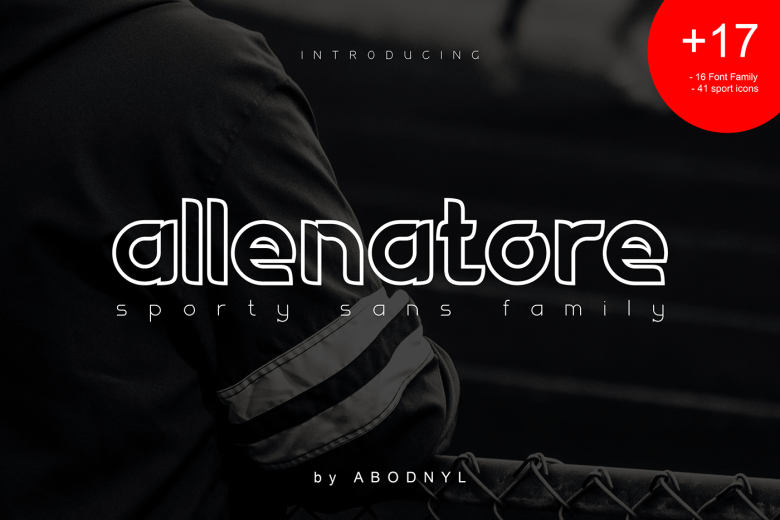
Allenatore Font Family
Hi Everyone! Creativity is endless with this font. This font could satisfy any customer’s needs. Please share this beautiful and attractive font with your designer co-workers and friends. Introducing Allenatore Typeface. The Allenatore is a sporty display family. It included 16 weights and 41 sport icons. It is perfect for logos & branding, headlines, book content, photography, invitations, watermarks, advertisements, stationery, labels, product packaging and much more!